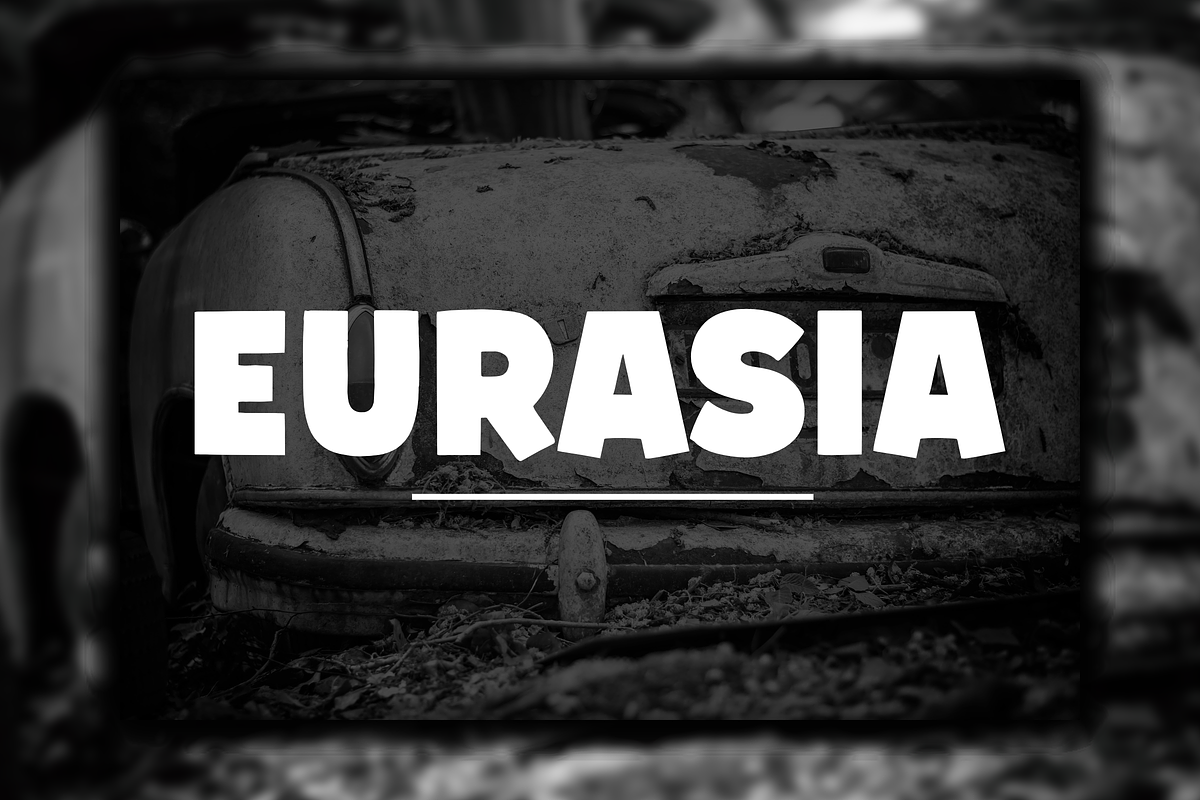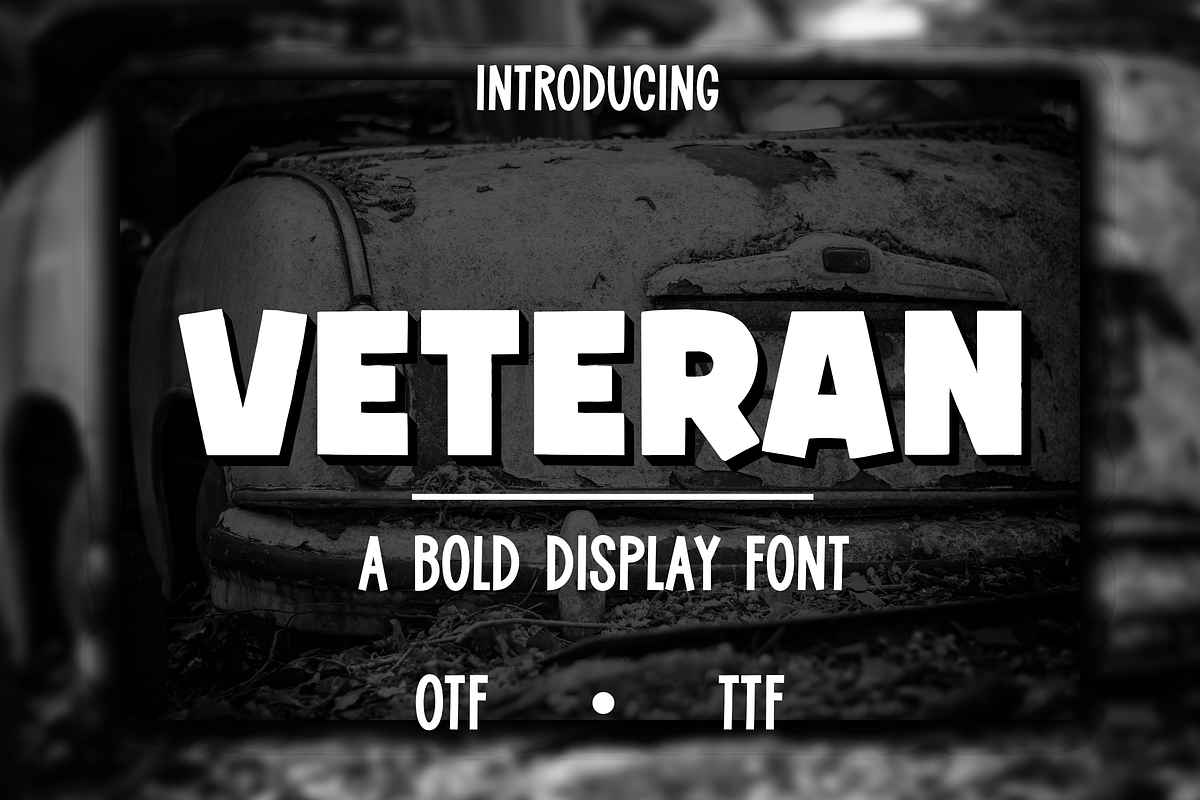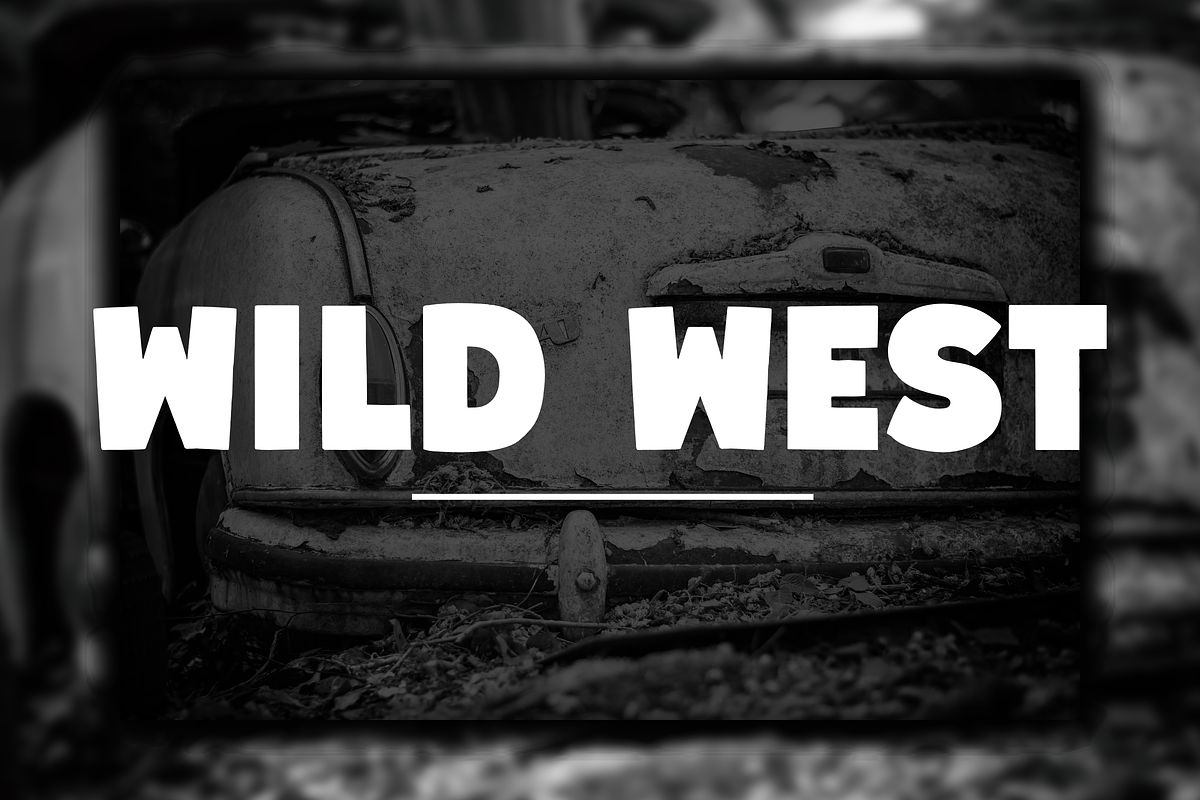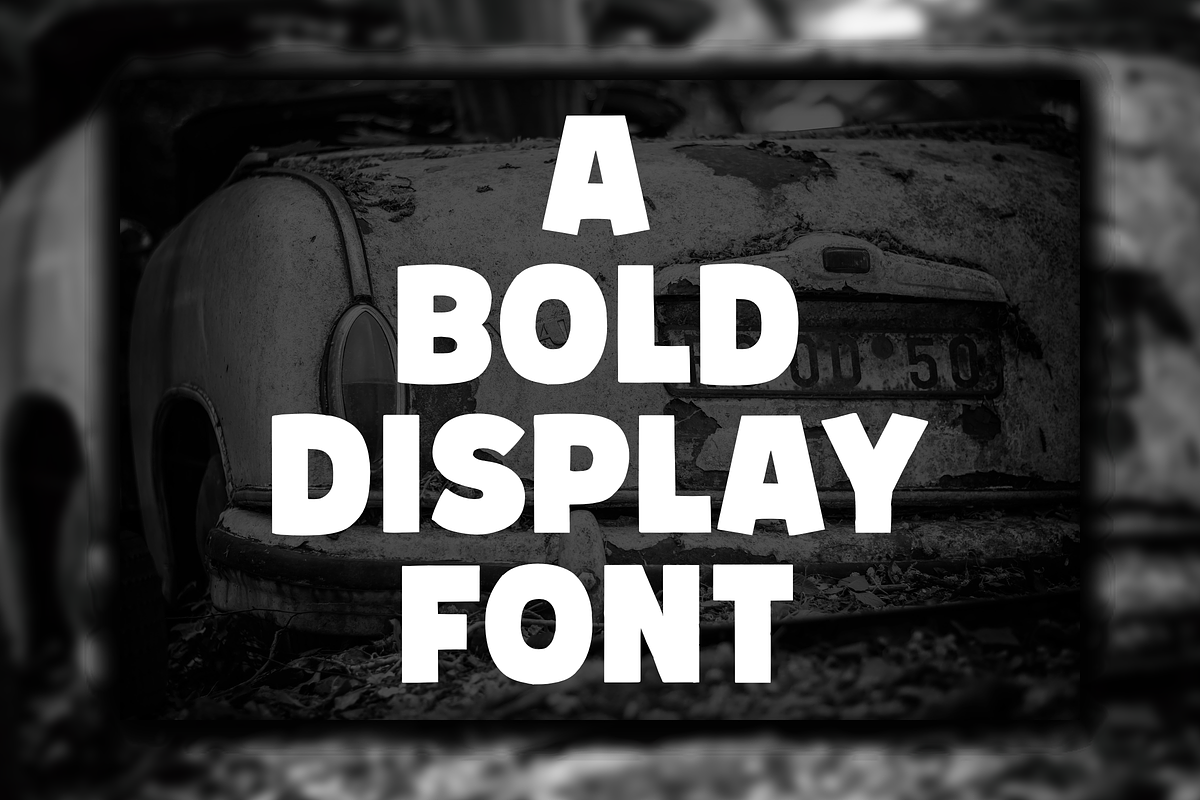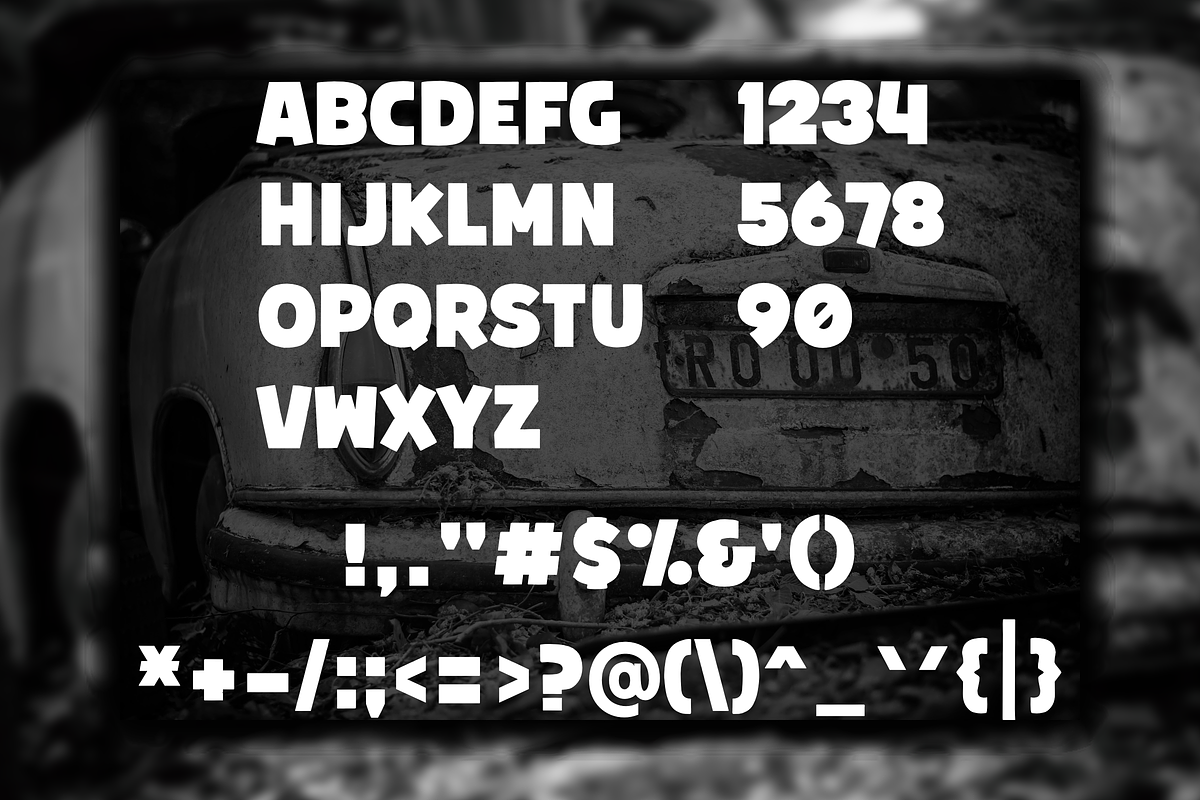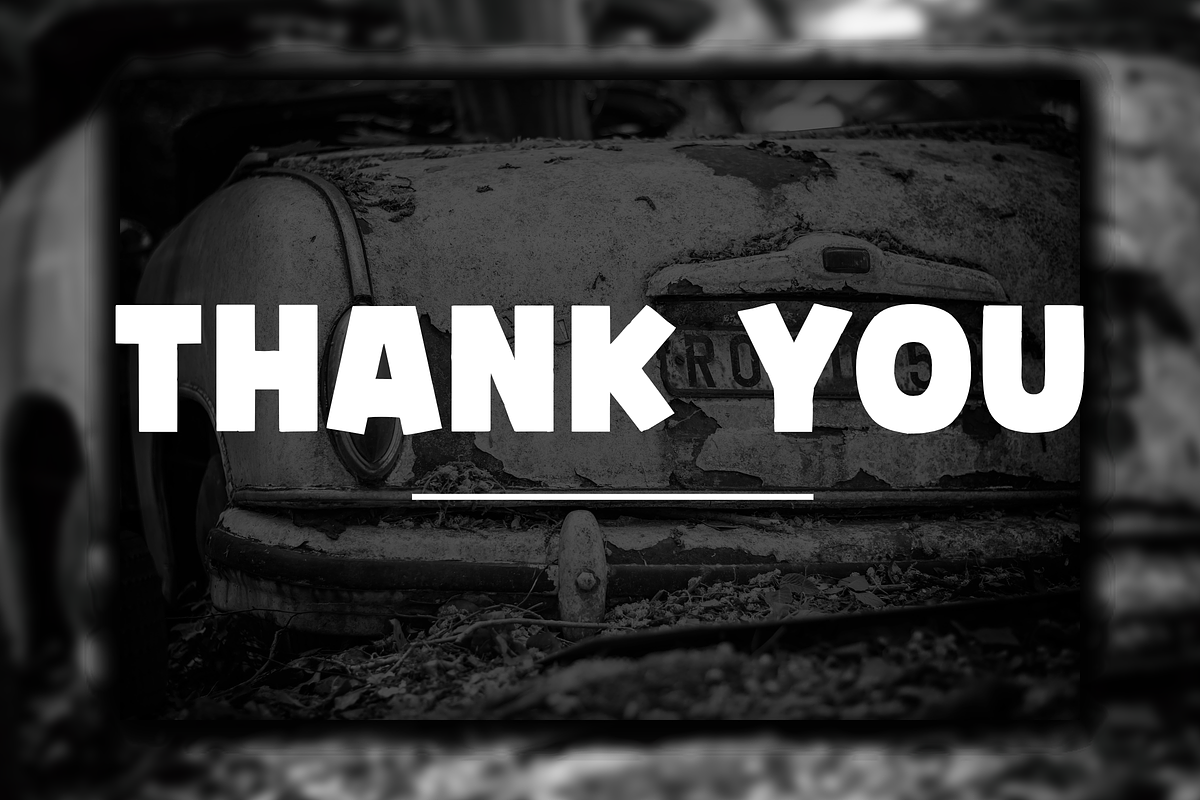
Veteran
Veteran is a bold display font that will guarantee to make an impact on your projects. This strong font can be used to create headlines, titles, posters, and anything that needs to create a strong impression.